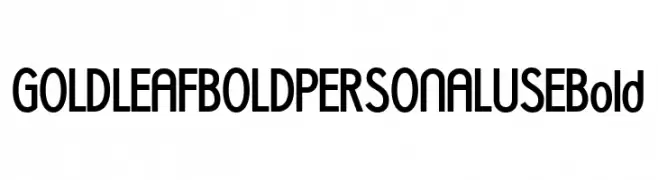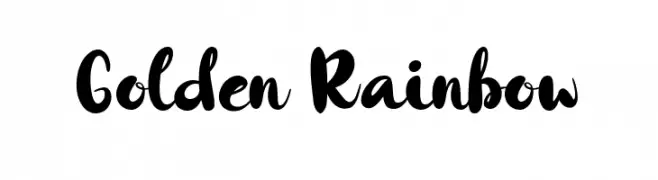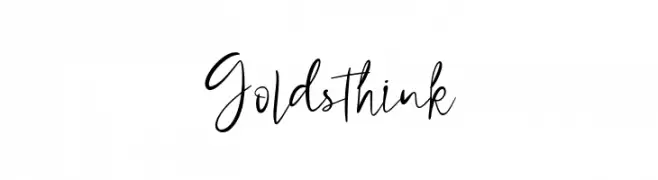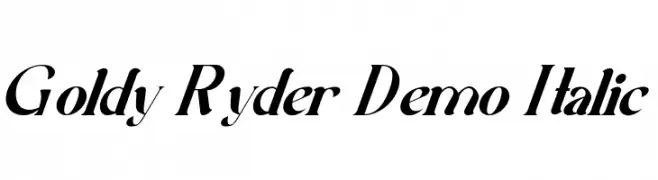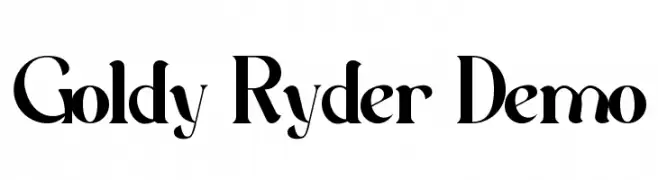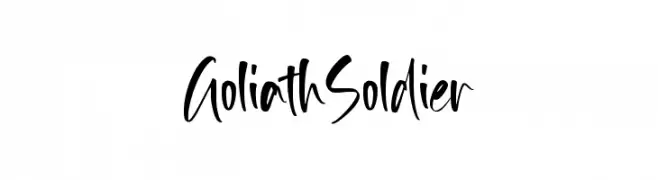
A bold, expressive handwritten font with dynamic strokes and modern style.
A decorative, textured script font with a vintage flair.
A bold, modern font with geometric lines and a sleek appearance.
A modern, handwritten cursive font with elegant, flowing lines and dynamic contrast.
A bold, cursive script font with elegant, flowing strokes.
An elegant italic font with high contrast and a modern, sophisticated style.
A bold, high-contrast serif font with a modern and classic blend.
A playful, handwritten font with fluid strokes and a whimsical style.
A bold, expressive script font with flowing strokes and artistic flair.
A graceful and elegant script font with flowing, cursive letterforms.